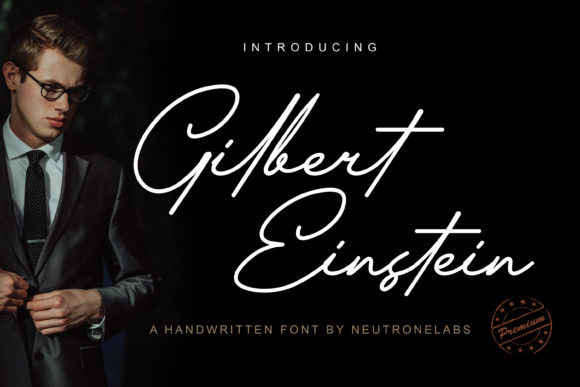
Gilbert Einstein Font: Elevate Your Designs with Elegance and Sophistication
In the world of typography, few fonts capture the essence of elegance and sophistication as beautifully as the Gilbert Einstein Font. This stunning script font, characterized by its thin letters and graceful strokes, has become a favorite among designers and crafters looking to add a touch of refinement to their projects. Whether you’re creating wedding invitations, stationery art, social media posts, or any other design that requires a dash of class, Gilbert Einstein is the perfect choice.
The Charm of Gilbert Einstein Font
Gilbert Einstein Font is more than just a typeface; it’s an expression of style and sophistication. Its thin, flowing letters exude a sense of elegance, making it ideal for designs that require a high level of refinement. The font’s graceful script style is reminiscent of classic calligraphy, yet it retains a modern touch that makes it versatile for a wide range of applications.
Perfect for Wedding Invitations and Stationery
One of the most popular uses of Gilbert Einstein Font is in creating beautiful wedding invitations and stationery. The font’s elegant and sophisticated style perfectly complements wedding themes, adding a touch of romance and luxury to your designs. Whether you’re a designer offering bespoke wedding stationery services or a crafty individual creating your own wedding invitations, Gilbert Einstein Font is sure to impress.
Imagine pairing Gilbert Einstein with a soft watercolor background, floral patterns, or metallic accents to create stunning wedding invitations that set the tone for a fairytale wedding. The font’s readability and flowing style ensure that your invitations are not only beautiful but also clear and easy to read.
Elevate Your Social Media Posts
In the digital age, social media posts play a crucial role in personal branding and business marketing. Gilbert Einstein Font can help you stand out in a crowded social media landscape. Use it to create eye-catching social media graphics, quotes, and announcements that exude elegance and sophistication.
Whether you’re a lifestyle blogger, a fashion influencer, or a small business owner, Gilbert Einstein Font can help you elevate your brand’s visual identity. Pair the font with striking images, and watch your social media posts transform into engaging pieces of art that capture the attention of your audience.
Versatility Beyond Wedding and Social Media
The versatility of Gilbert Einstein Font extends far beyond wedding invitations and social media posts. This beautiful script font can be used in a variety of design projects, including:
• Stationery Art: Create gorgeous notebooks, journals, and greeting cards that showcase your creativity and attention to detail.
• Branding and Packaging: Use Gilbert Einstein Font to add a touch of elegance to your brand’s packaging, labels, and marketing materials.
• Web Design: Incorporate the font into your website’s design to create a cohesive and sophisticated visual identity.
Why Choose Gilbert Einstein Font?
With so many fonts available, why choose Gilbert Einstein? Here are a few reasons why this font stands out:
• Unique Style: Gilbert Einstein Font offers a unique blend of classic elegance and modern sophistication, making it perfect for designers looking for something distinctive.
• Readability: Despite its thin strokes, Gilbert Einstein Font remains highly readable, ensuring that your designs are both beautiful and functional.
• Versatility: The font’s versatility makes it suitable for a wide range of design projects, from wedding invitations to branding and web design.
Font Name Gilbert Einstein Font
Author NeutroneLabs
Gilbert Einstein Font is a beautiful script font that can elevate your designs to new heights of elegance and sophistication. Its thin, graceful letters make it perfect for creating stunning wedding invitations, gorgeous stationery art, eye-catching social media posts, and much more. Whether you’re a professional designer or a crafty individual, Gilbert Einstein Font is a valuable addition to your typography collection. So, fall in love with its ravishing style and let your creativity shine!